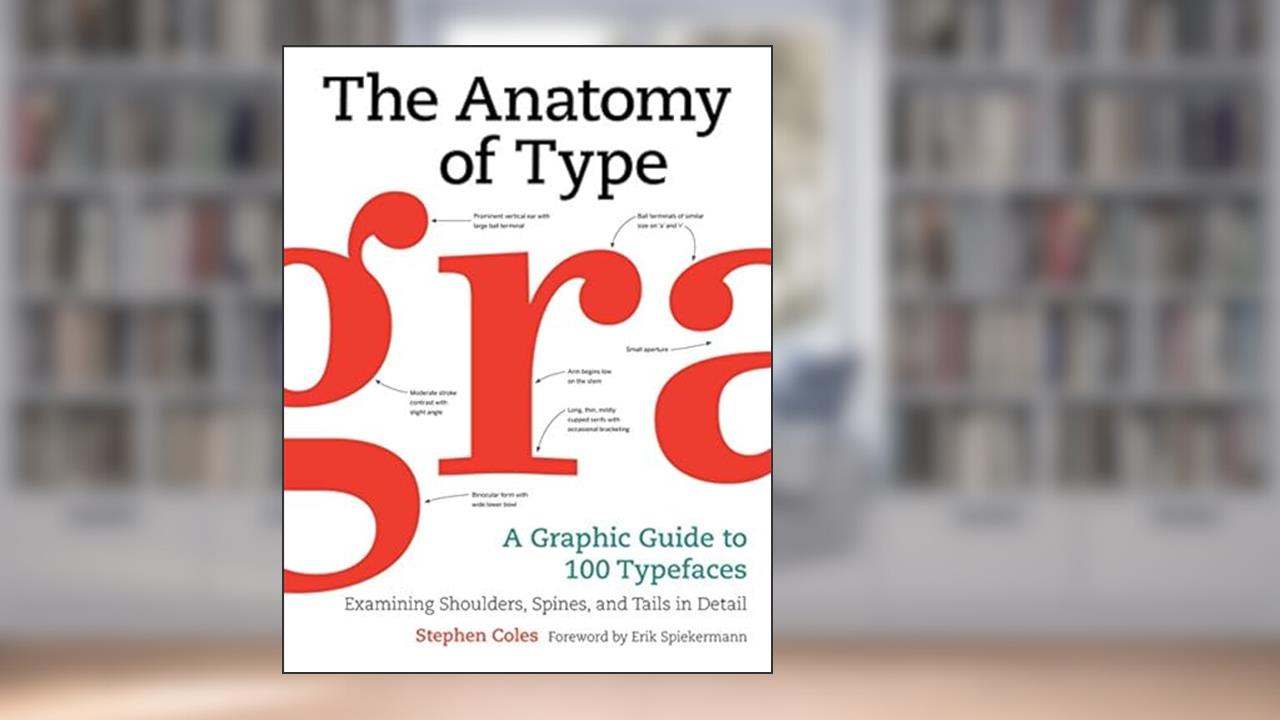
The Anatomy of Type
A Graphic Guide to 100 Typefaces
Stephen Coles
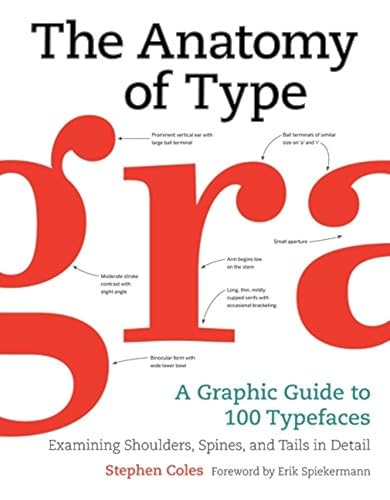
In the visually driven world we inhabit, typography is often an unsung hero, quietly shaping our perceptions and emotions. Stephen Coles's The Anatomy of Type: A Graphic Guide to 100 Typefaces takes us on an exhilarating deep dive into this vital art form, illuminating the often-overlooked nuances of typefaces. Coles entices readers not just to observe, but to engage with the intricate details and personality behind each letterform, making typography not just a tool for communication, but a form of storytelling.
As you flip through the pages of this striking 256-page graphic guide, you are welcomed into a realm where each typeface bears the weight of its history and character. With vivid illustrations and expertly crafted descriptions, Coles invites you to witness the emotional spectrum that type can evoke-from the authoritative gravitas of Times New Roman to the playful charm of Comic Sans. This book transcends mere critique; it's a celebration of visual language, urging you to reconsider how typography influences your daily life, often in ways you never noticed before. 🎨
Readers have praised The Anatomy of Type for its accessibility; it's designed for both seasoned designers and curious novices. You don't need to be a graphic designer to appreciate the beauty and functionality of typefaces. Coles demystifies complex terminology and presents it with flair, making it digestible and enjoyable. Critics have raved about its engaging layout, noting that the lively illustrations breathe new life into the study of typography. Yet, there are those who yearn for more depth in technical analysis, suggesting that while the visuals dazzle, a little more substance on the design principles at play would have been welcome.
The context in which this book emerges is equally fascinating. Published in 2012, it arrives during a renaissance of design and digital media where typography is more crucial than ever. As social media, branding, and digital content proliferate, understanding how to choose and manipulate typefaces becomes an essential skill. Coles expertly taps into this zeitgeist, fully understanding how the right font can elevate a message or utterly destroy its impact.
Consider the cultural ramifications of typography. From print to pixels, the aesthetic choices we make resonate deeply with the culture around us. The fonts we gravitate towards can reveal much about societal trends and preferences. In an era dominated by minimalist design and user-friendly interfaces, Coles's work is a reminder that typography is not merely about beauty-it's about clarity, legibility, and the power of communication.
Many influential figures in design have acknowledged the importance of typography in their work. Take, for instance, the likes of Massimo Vignelli, whose famous quote, "If you can't find it, you can't use it," emphasizes the necessity of well-executed typography. Coles captures this ethos, reinforcing how effective type can be an unsung player in crafting memorable messages in branding, advertising, and art.
As you explore The Anatomy of Type, you might just experience a revelation about the fonts you see every day. Will Comic Sans ever escape its reputation? Can Times New Roman be stylish again? Coles's book is not merely a guide; it's a call to action for those who dare to understand the language of letters.
The final pages of this visual odyssey will leave you longing for more knowledge, igniting an insatiable curiosity about the world of typography that surrounds you daily. You may find yourself glancing at your favorite books, websites, and advertisements in a whole new light. This book doesn't just teach-it transforms your perception, urging you to question every typographical choice you encounter.
In a world where our attention is constantly being tugged and pulled by an overwhelming flood of information, The Anatomy of Type stands as a beacon, encouraging us to pause, observe, and fully appreciate the art of letterforms. Are you ready to never look at fonts the same way again? 🌟